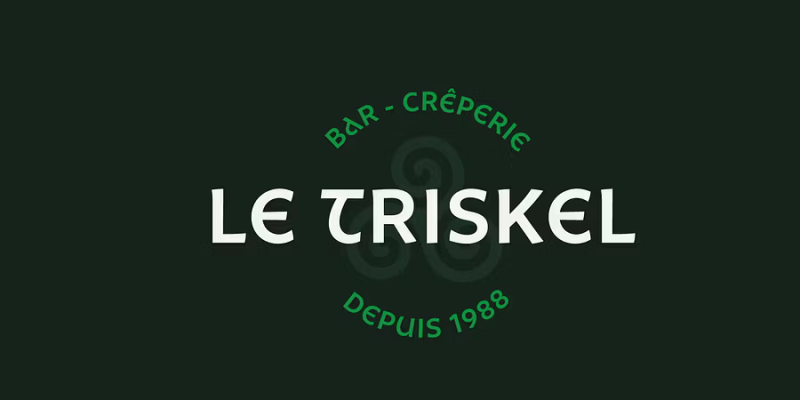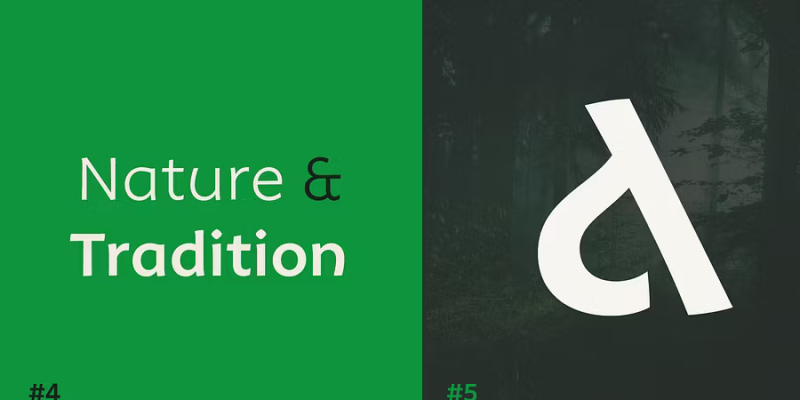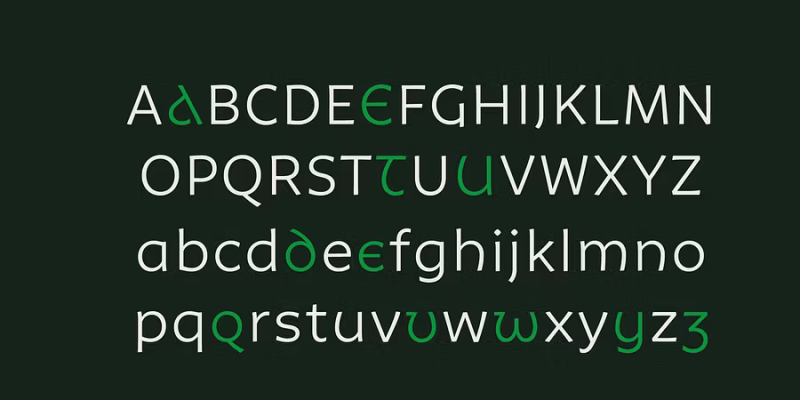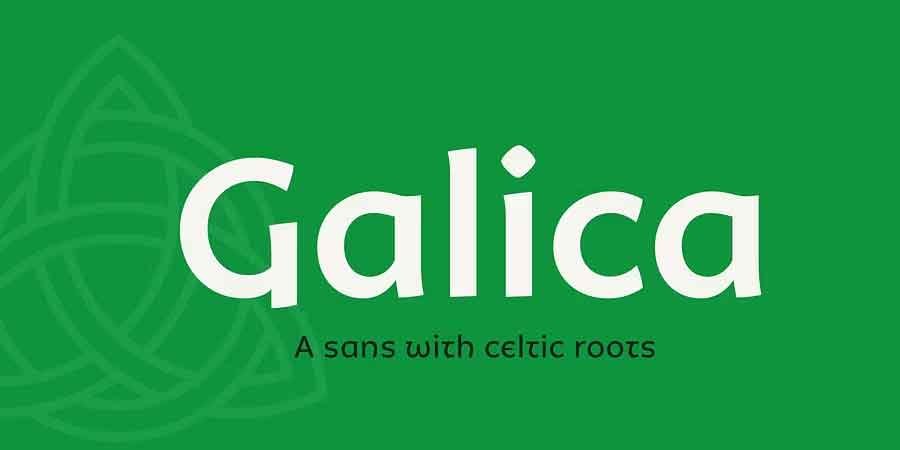
Galica Font Family
Galica is a display sans with celtic vibes in 6 styles, designed by Joël Carrouché. The family supports most European languages and includes a selection of stylistic alternates inspired by uncial calligraphy.
Galica Font Family is a Sans Serif Fonts font that brings a professional and versatile look to your projects. Galica is a display sans with celtic vibes in 6 styles, designed by Joël Carrouché.